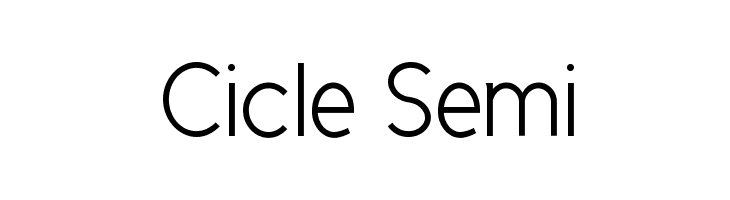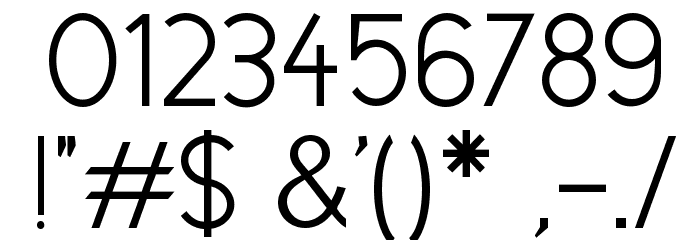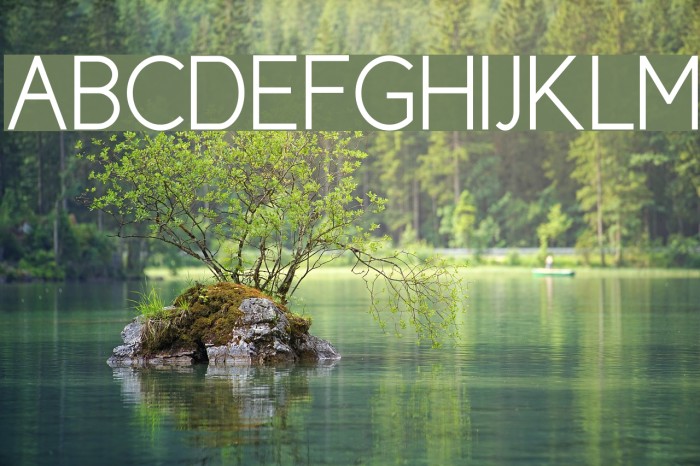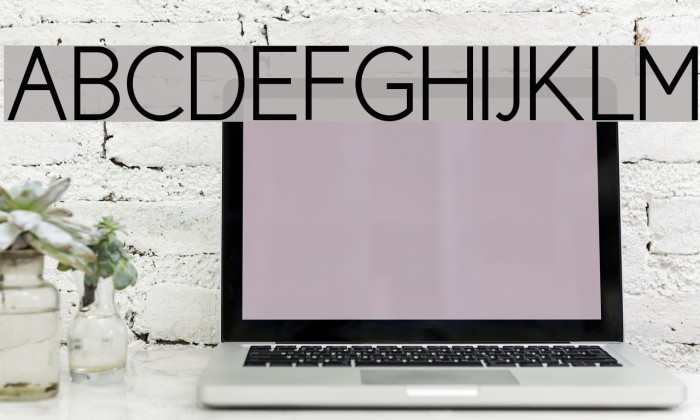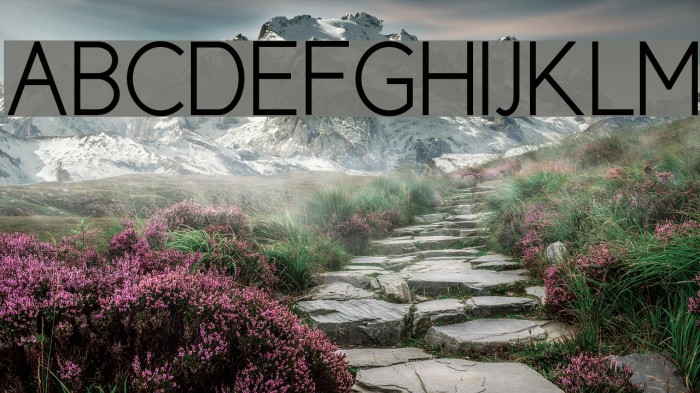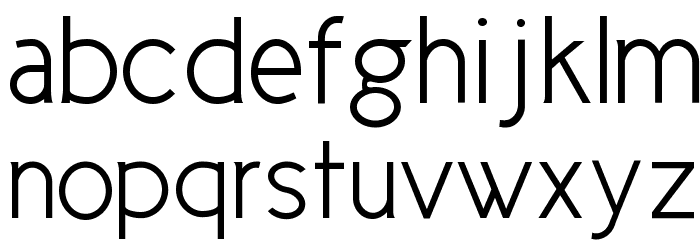
Cicle Semi Font
Cicle Semi Description
This font features a clean and modern design with a geometric structure. The characters are well-balanced, with a consistent stroke width that gives a uniform appearance. The uppercase letters are bold and assertive, while the lowercase letters maintain a friendly and approachable look. The numerals are clear and easy to read, making them suitable for various applications. Special characters are designed with simplicity in mind, ensuring they blend seamlessly with the rest of the typeface. Overall, this font exudes a sense of professionalism and clarity, making it versatile for both digital and print media.
| Use Case | Headlines, Body text, Logos |
| Proposed Projects | Ideal for branding, web design, corporate materials, and editorial layouts. |